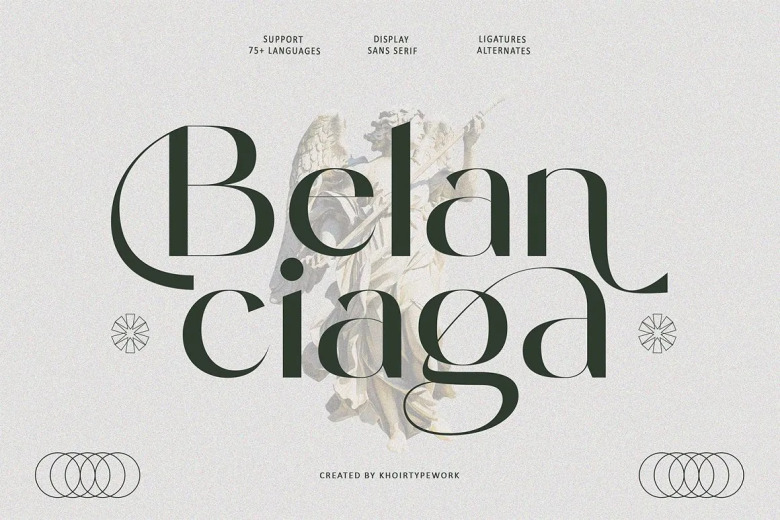
Belanciaga Font
Belanciaga Sans-Serif font that features an exclusive feel that combines a retro feel and a modern style feel. Hence it makes it feel calm when you see it, with numerous choices and soft ligatures that allow you to explore this font into your design world.
Belanciaga Modern Sans Font